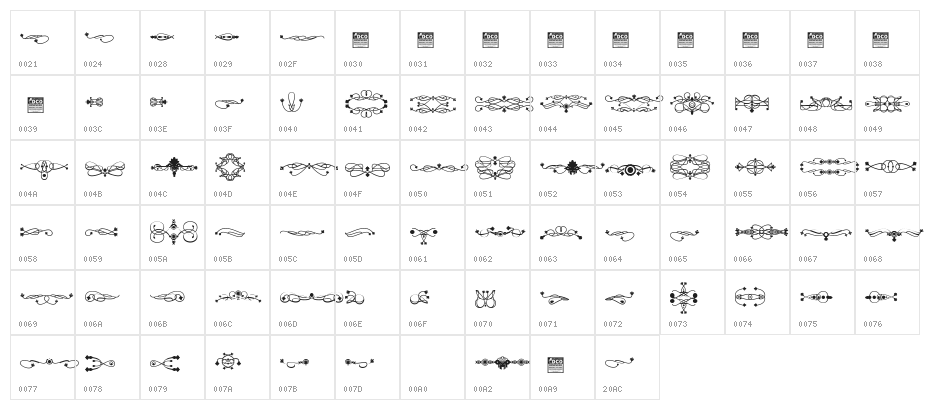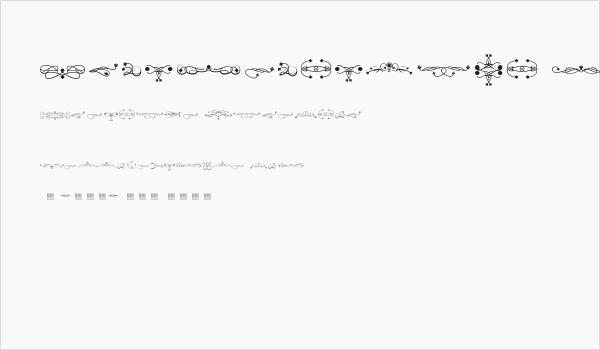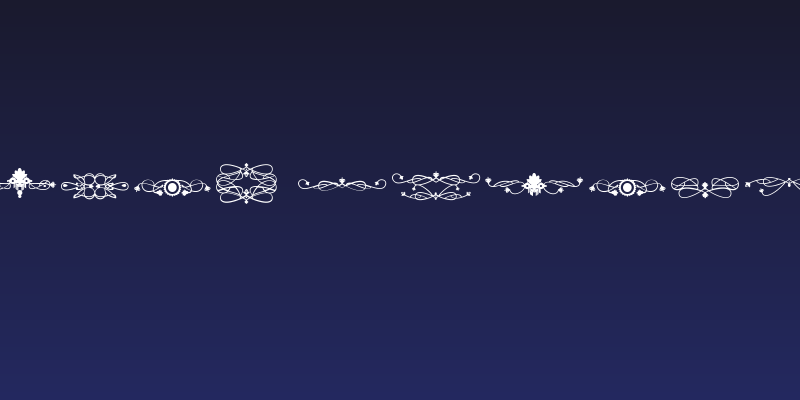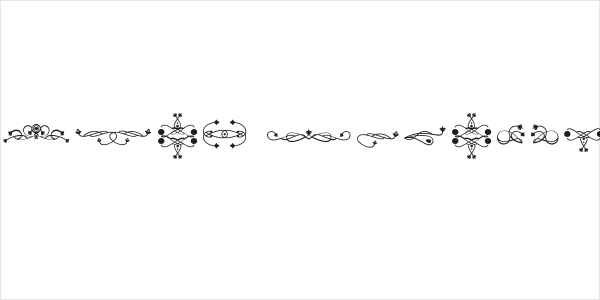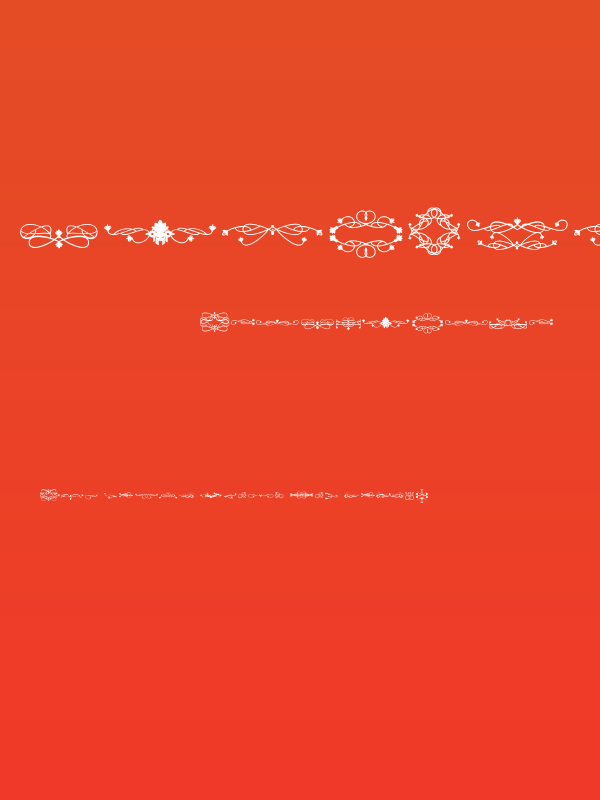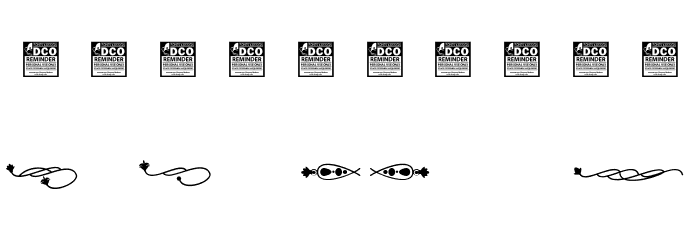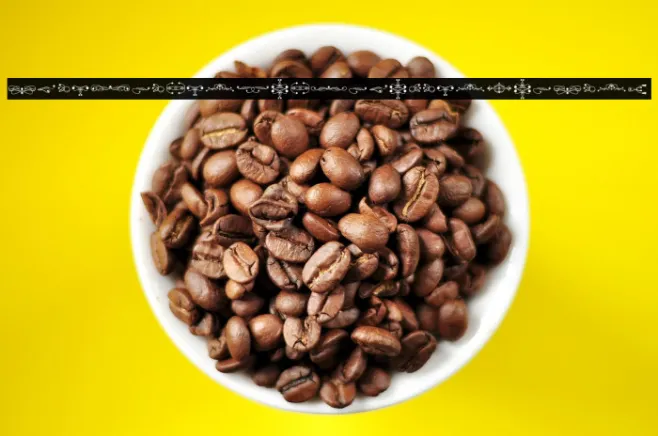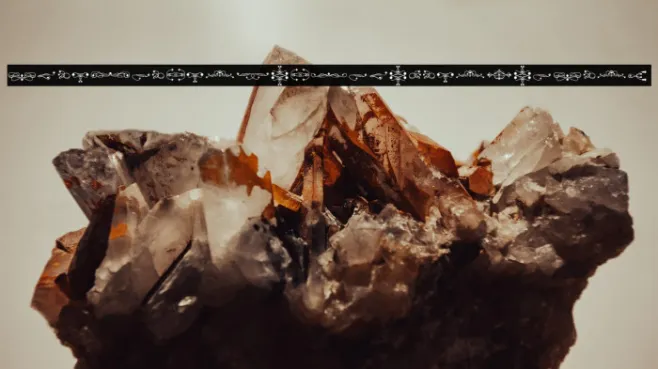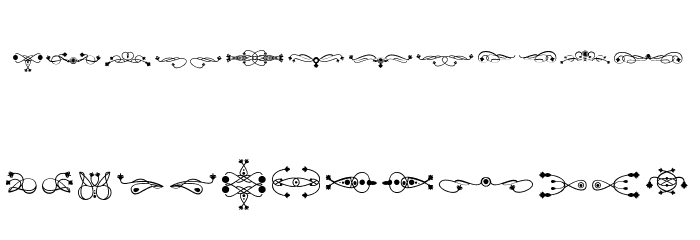
Ornamentalist_PersonalUseOnly Font
Ornamentalist_PersonalUseOnly Description
This is a decorative font featuring intricate ornamental designs. Each character is crafted with elaborate flourishes and embellishments, creating a sense of elegance and sophistication. The designs are reminiscent of vintage calligraphy and are perfect for adding a touch of class to any project. The font includes a variety of ornate patterns, each with unique detailing that captures the eye. These elements are ideal for creating borders, dividers, or decorative accents in design work.
| Use Case | Decorative elements, Borders, Invitations |
| Proposed Projects | Ideal for wedding invitations, vintage-themed projects, decorative borders, and artistic design elements. |